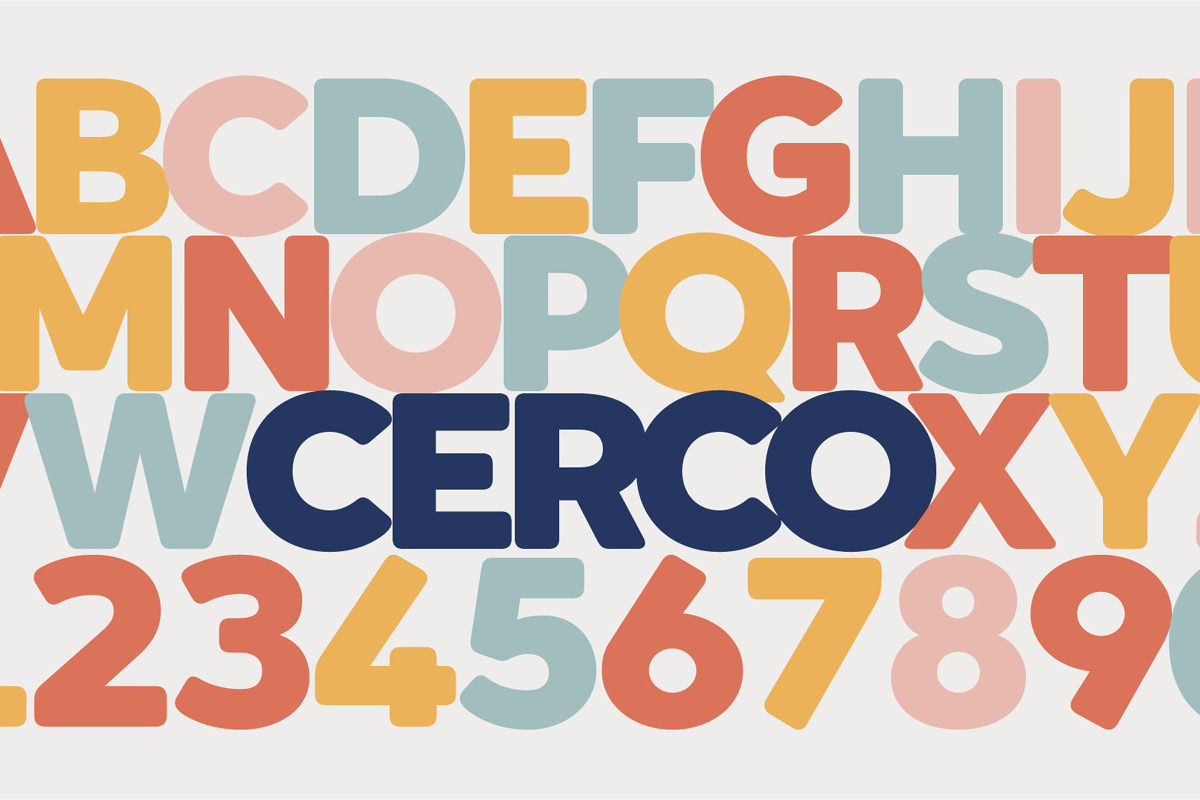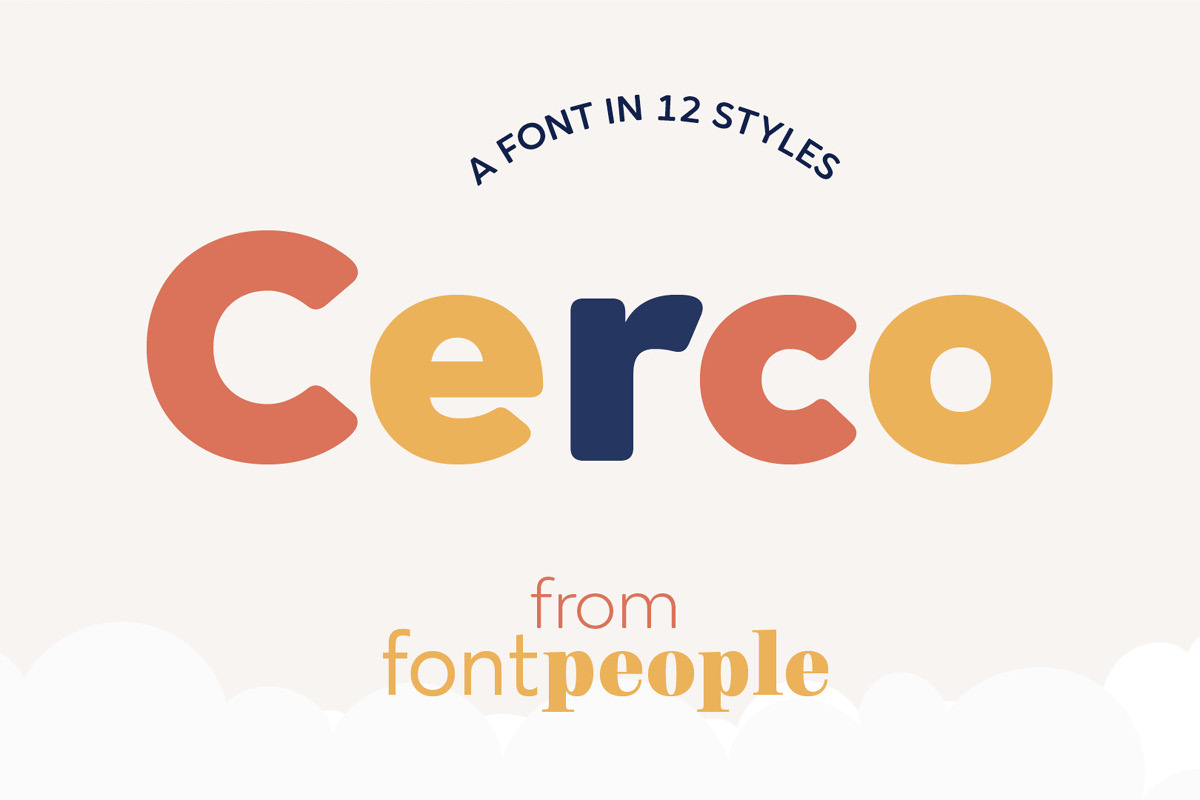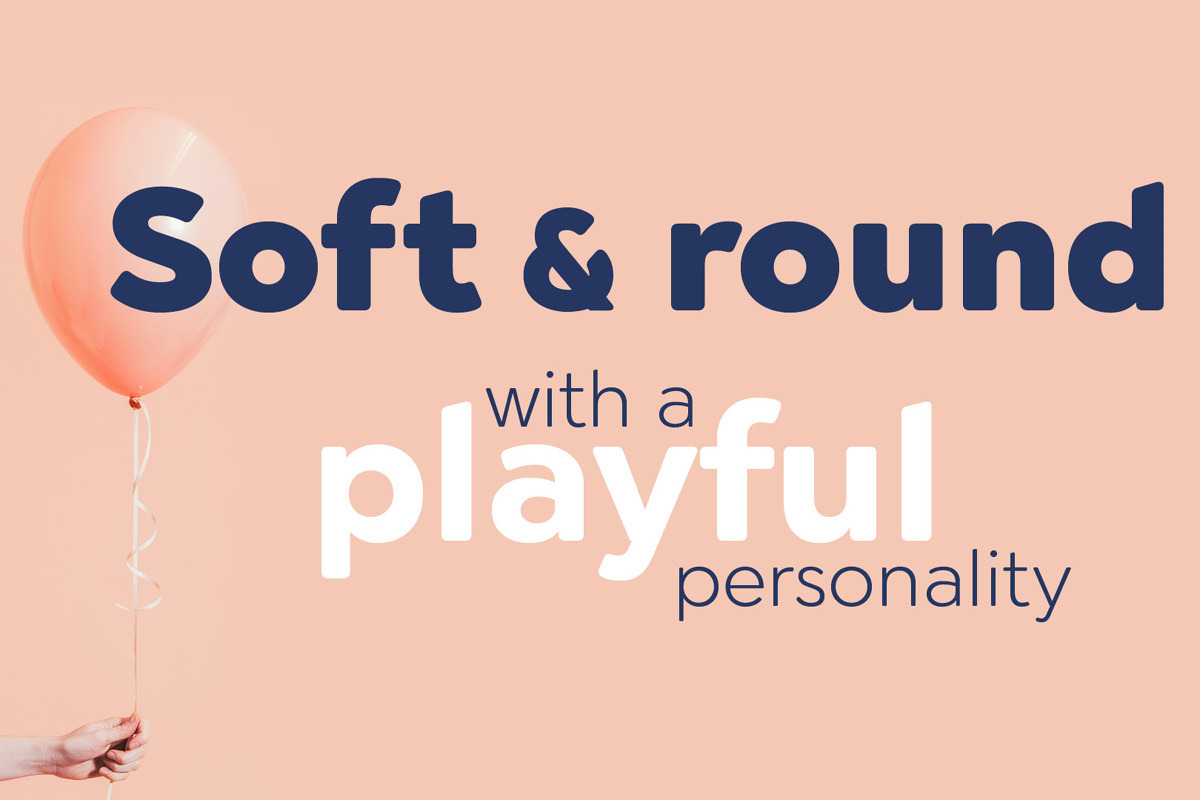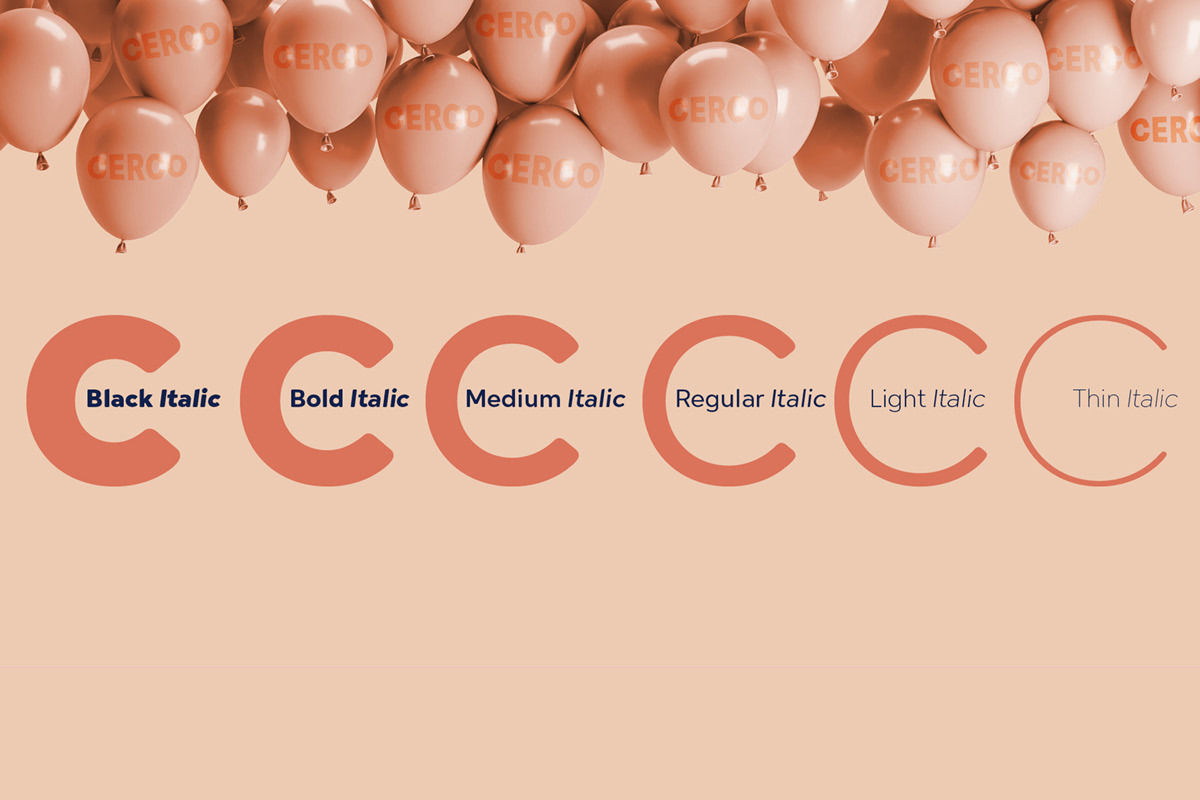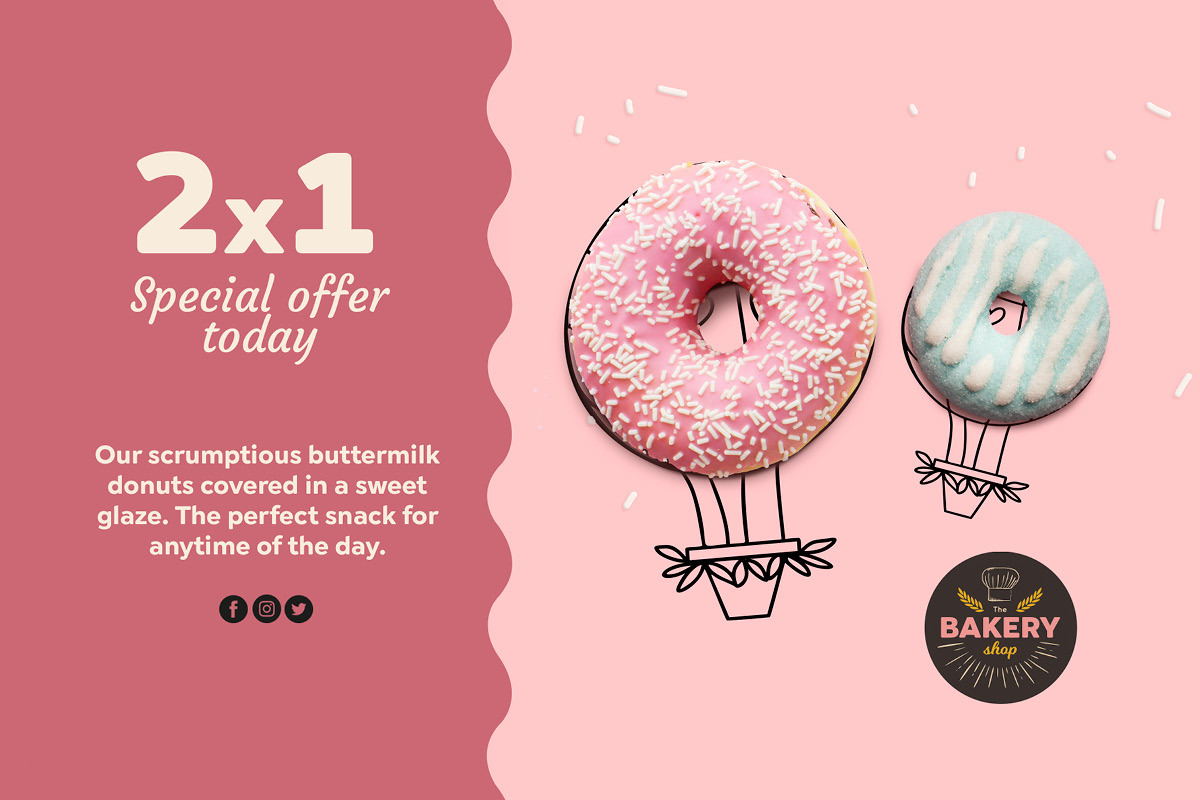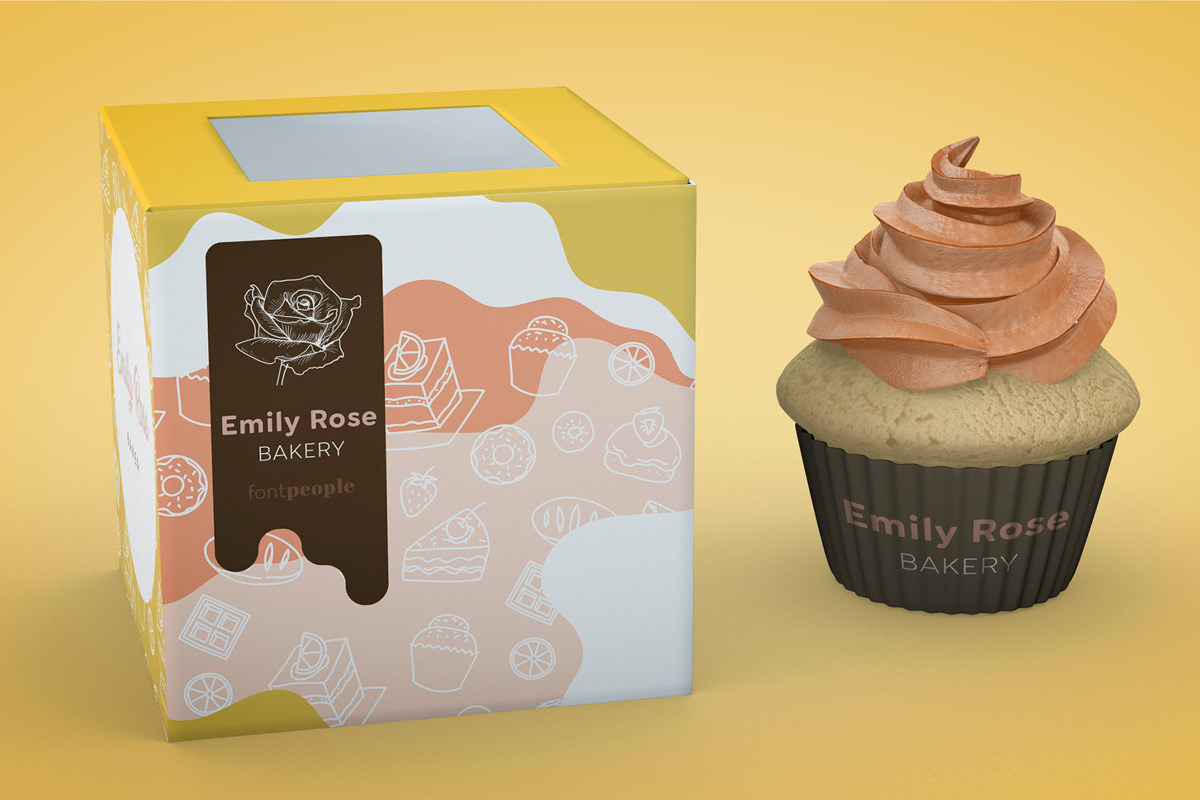
Cerco font family by FontPeople
With its slightly rounded terminals Cerco is a soft and friendly font family with a bit of a warm and playful appearance. The intermediate styles suite perfectly for body texts while the strong weight especially look beautiful at display size. Cerco is suitable for a wide range of applications in digital and printed environments: advertising and editorial design, signage and way-finding systems as well as brand design can profit from its appealing and modern design.